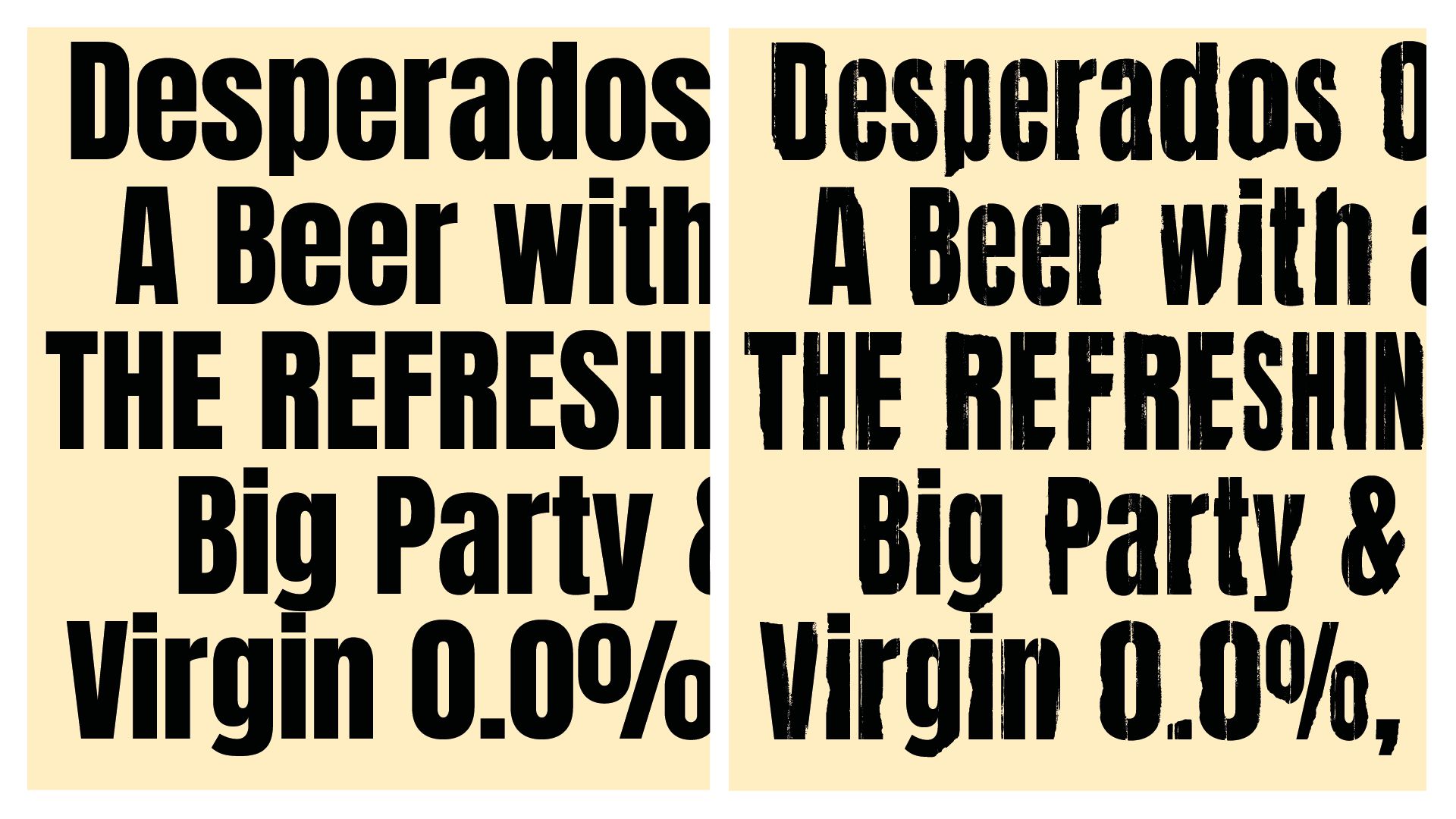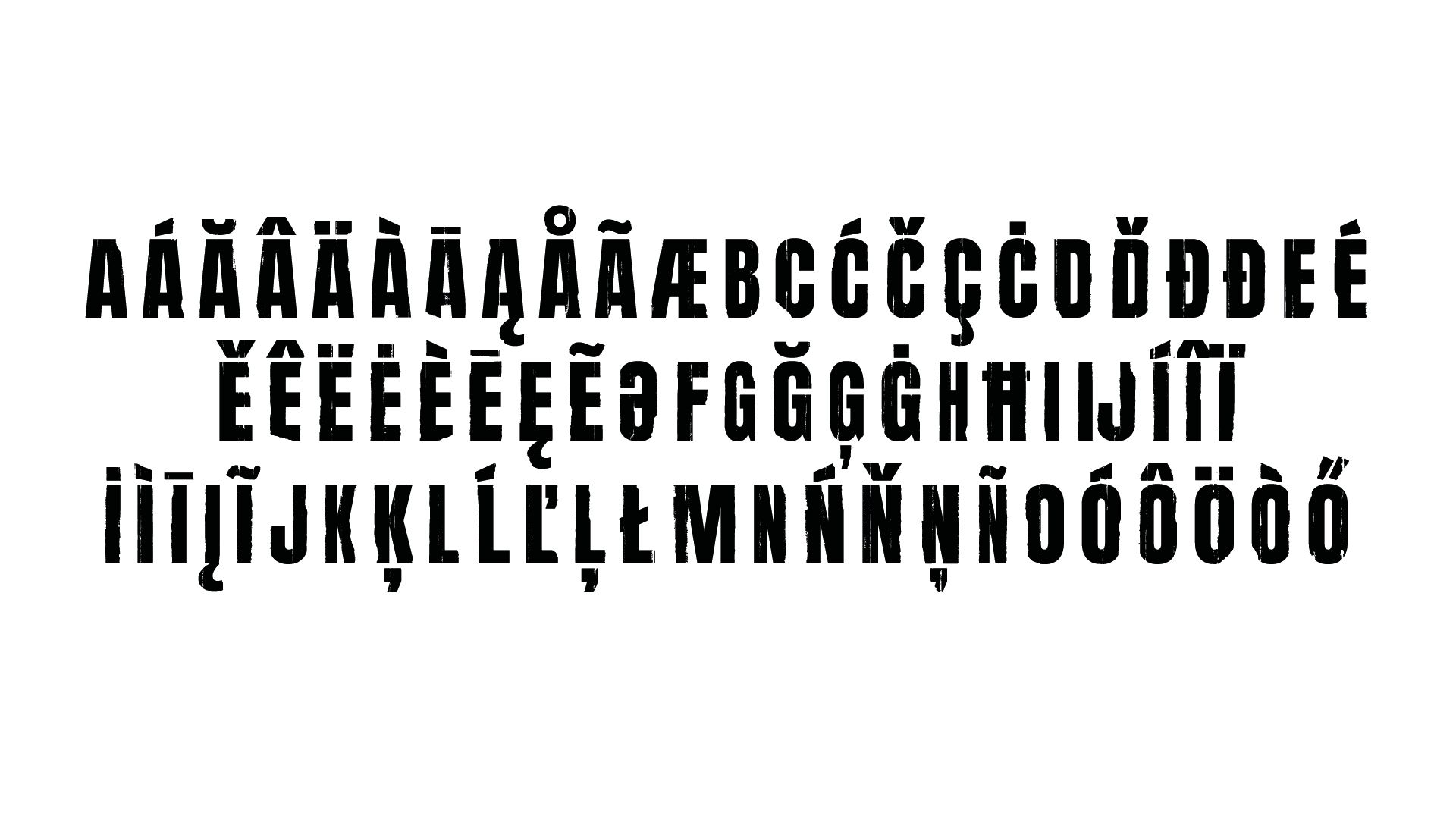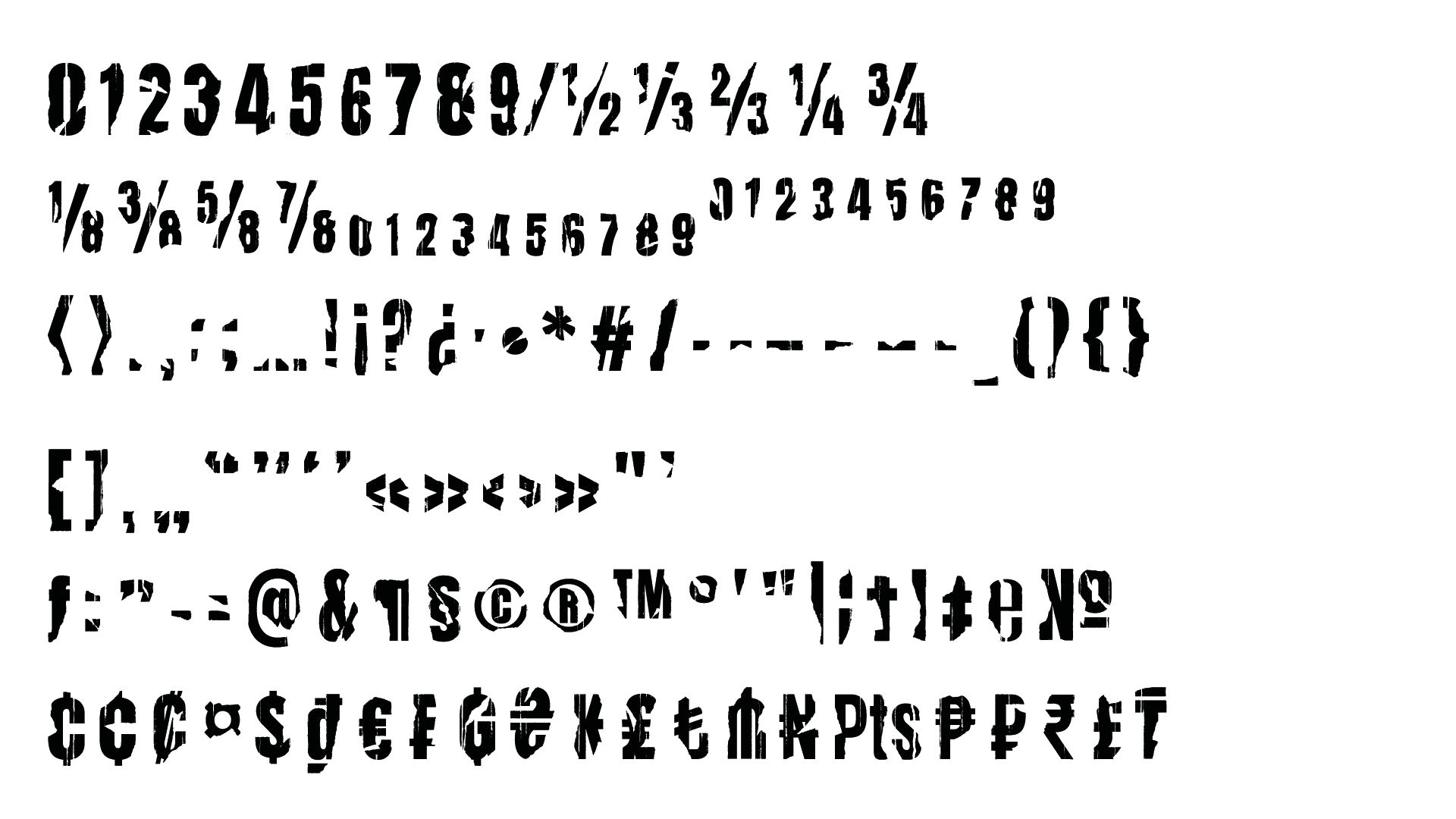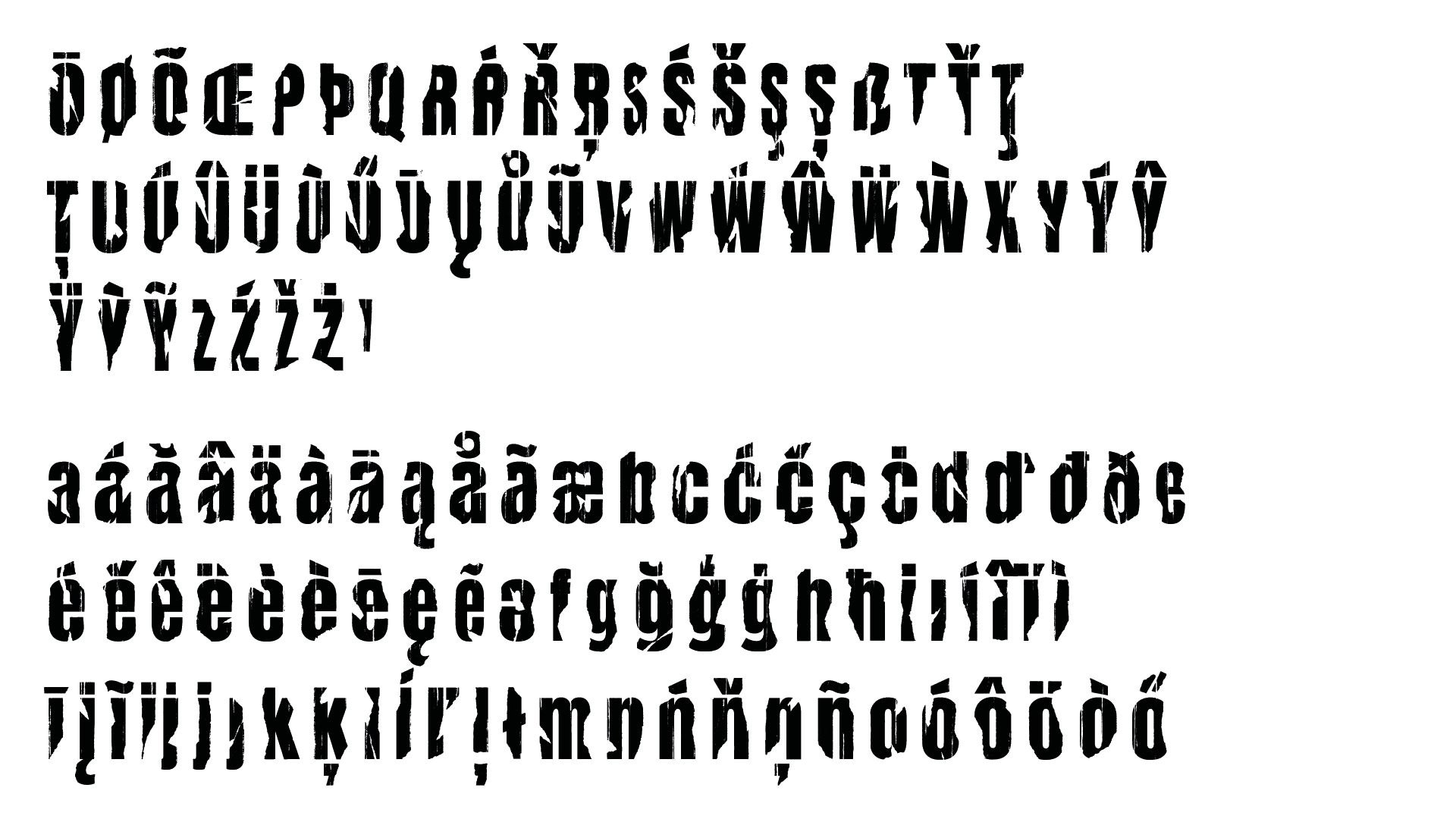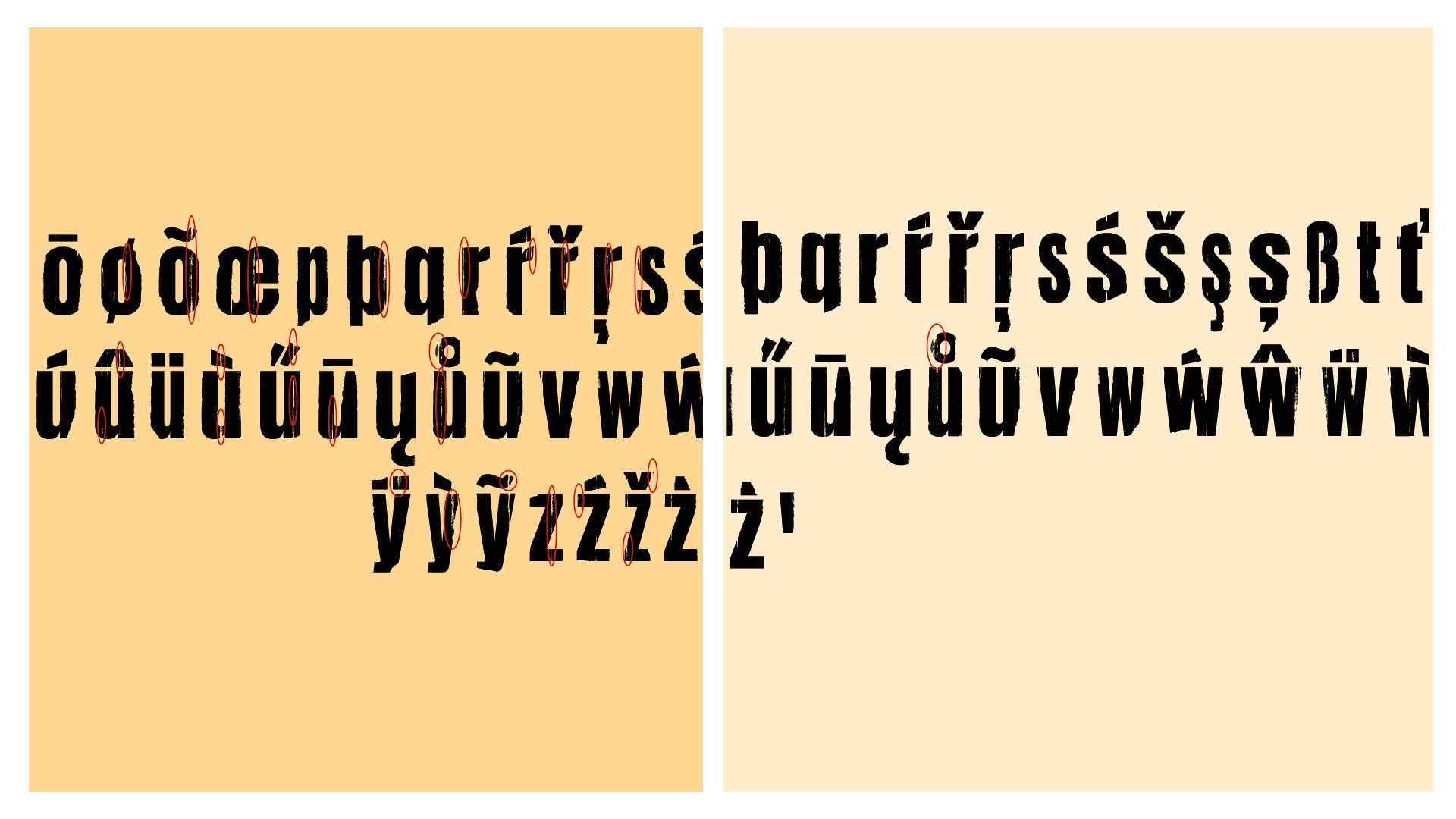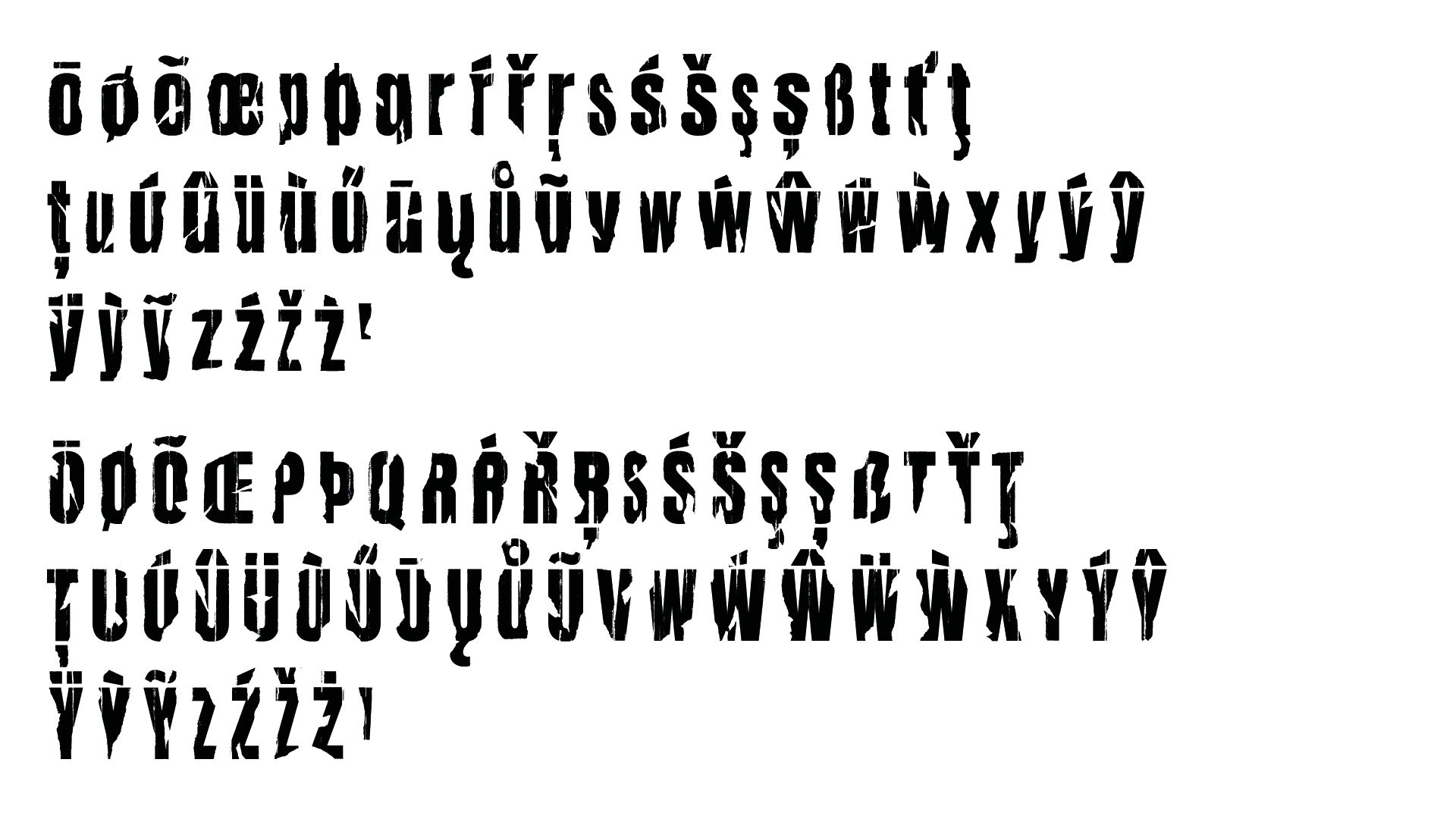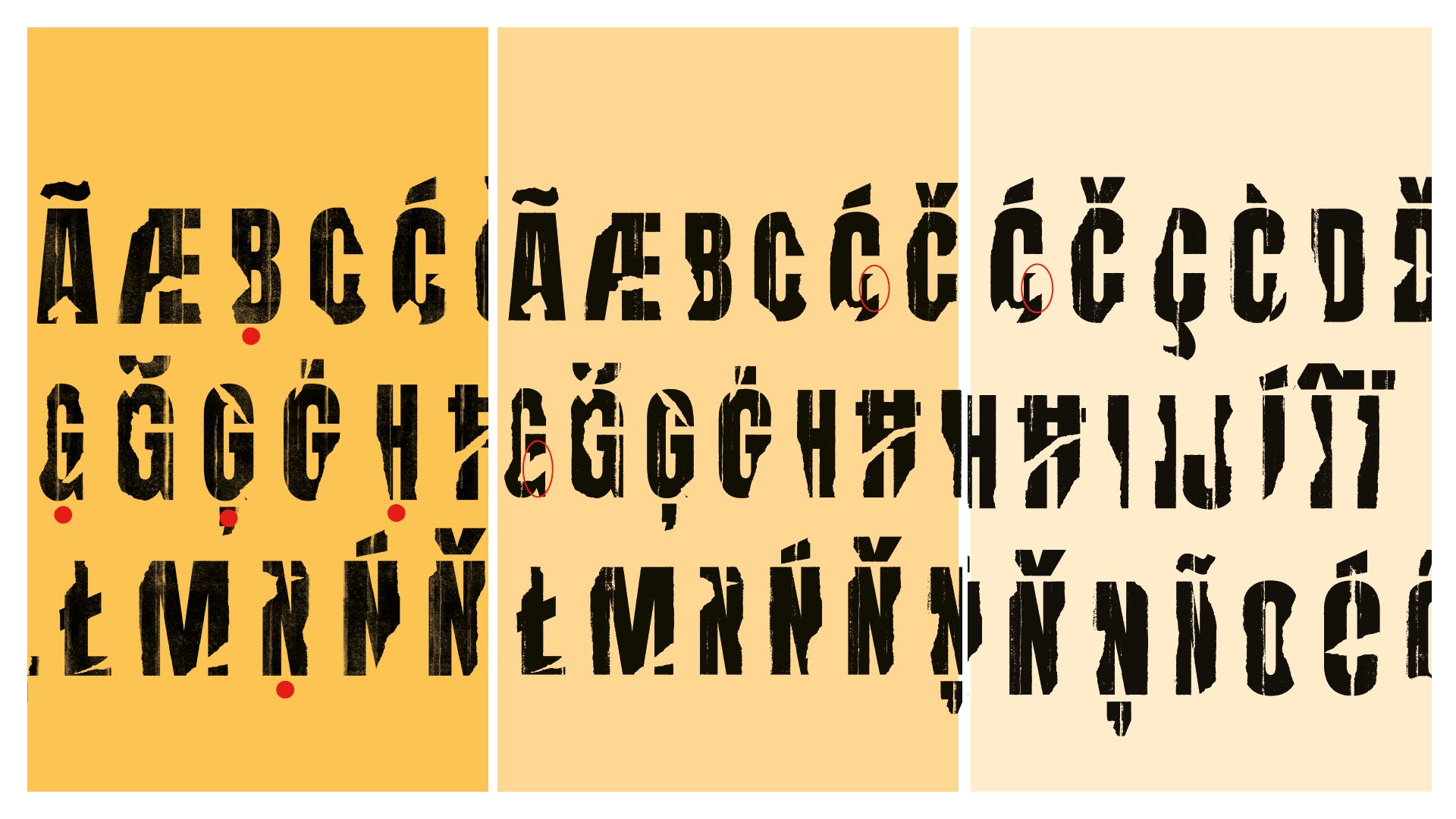
Desperados
The brief
Since its creation, Desperados beer has exploited a wide range of typography. Condensed sans serifs can also be replaced by lettering with paper-cut effects or a script with vernacular pretensions.
This great disparity may suit the launch of a new bottle with an original aroma, but in the medium and long term it doesn't allow us to present a coherent collection: light, sunny drinks evoking the exoticism of Latin America.
Final ad poster with a mix of Anton & Anton Desperados fonts: 3 variants for the E glyph: original, then soft and hard version.
The solution
Desperados' communications agency opted for a single typography as the most relevant and obvious solution: adapted to the various writing systems of extended Latin, and evoking both the modernity of the drink, and the tradition of a Latin beer born in the street, consumed in the street.
Like its recognizable logo, the condensed letters, criss-crossed in the wooden lettering of early 20th-century posters, perfectly convey this duality, which simply needs to be taken a step further by exploiting graphic wear, flaws and imperfections.
The same baseline also appears on videos for social medias.
The simplest solution would be to apply digital textures to the characters. However, for a predictable and unconvincing result, this simple process generates a lot of tedious work that doesn't easily allow for last-minute modifications, whether for printed or digital media.
Final ad poster with a mix of Anton & Anton Desperados fonts: 3 variants for the E glyph: original, then soft and hard version.
In the summer of 2024, Blaze Type was approached by the communications agency to develop this custom typeface. But, rather than develop a typeface from scratch, the brand preferred to start from an existing, royalty-free typeface already incorporating the graphic codes of these wooden typefaces.
Anton (Vernon Adams, 2020), for example, will feature intact typography, while Blaze Type will feature Anton Desperados, its damaged counterpart.
Anton, the basis of the Desperados font.
The first step is not immediately to age the typeface, but to give it that typical coloring of old typesetting: within the same case, some glyphs of the same typeface sometimes come from a different foundry, generating inconsistent kerning and width.
The typographic gray is thus disrupted, narrowing and reducing the kerning of certain glyphs. The text takes on a dancing appearance, true to these defects, bringing all the warmth of vintage posters.
Léon Hugues, lead designer on this project, reports:
The correction asked by the agency on the soft Anton Desparados font, step 2 & 3.
"I'm used to designing very clean vector type, with precise, neat curves. But here, we found ourselves in a totally opposite approach: we had to break the letters, tear them, pierce them, give them matter, density - as if they'd been printed on an old press, then ripped off and glued back on by hand."
The corrections asked by the agency on the hard Anton Desparados font, step 2, 3 & 4.
"The idea, then, was to apply textures to them. The challenge was that the more texture we added, the more we risked compromising the legibility of the letters.
Initially, we experimented with different filters via Photoshop, to see how the letters could deteriorate and fragment, while retaining a lively, grainy effect. Once we'd found the right level of texture, we had to go back to each letter, correcting, retouching and adjusting the textures. Random effects didn't always produce the desired result - so we sometimes had to add, sometimes remove elements, always playing with the delicate boundary between expressiveness and legibility.
The challenge was to create a lively, expressive, textured character, while maintaining a certain degree of control. We wanted a rendering that didn't look too digital, too artificial."
Anton glyphset without any correction.
There was a lot of to-ing and fro-ing within the foundry, as well as with the advertiser's communications agency: each glyph had to be inspected to ensure that it did not reproduce the same effects, in the same places, and above all did not harm the legibility of the text.
To achieve this, two variants were developed in parallel: a lightly textured version, and a much rougher, almost saturated version. A real balancing act, between visual expressiveness and typographic rigor.
Final result: Anton (without correction) and the Hard Desperados version. The S & H have been compressed to look more old.
It should be noted that the diacritical characters are not assembled automatically, but, on the contrary, show wear variations, thus increasing the sincerity of the approach.
Far from being a simple technical exercise, this simple request turns out to be a tour de force in which the type designer also becomes a graphic artist, working the design in a communicative and expressive way. A fine demonstration of the foundry's expertise. As Blaze Type likes to remind us: our job is to provide tools that meet the needs of precise or multiple uses.
The complete Anton Desperados glyphset.